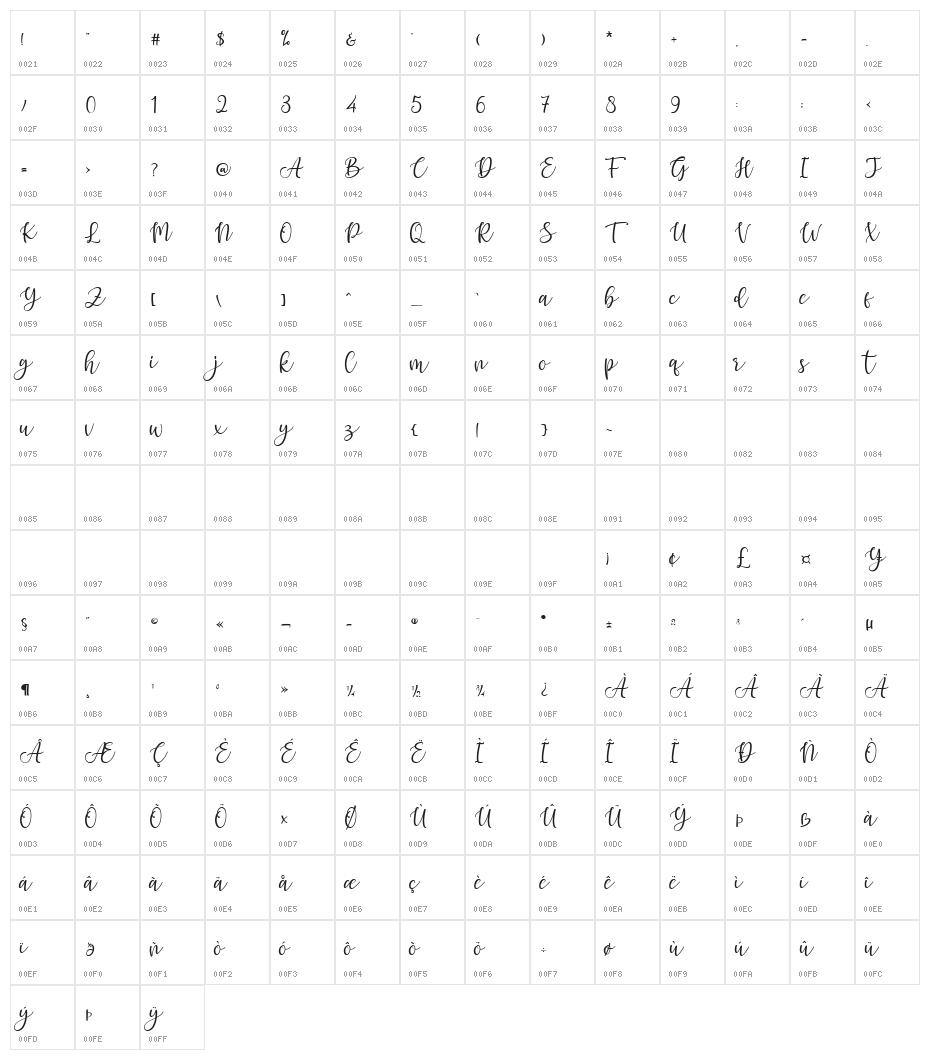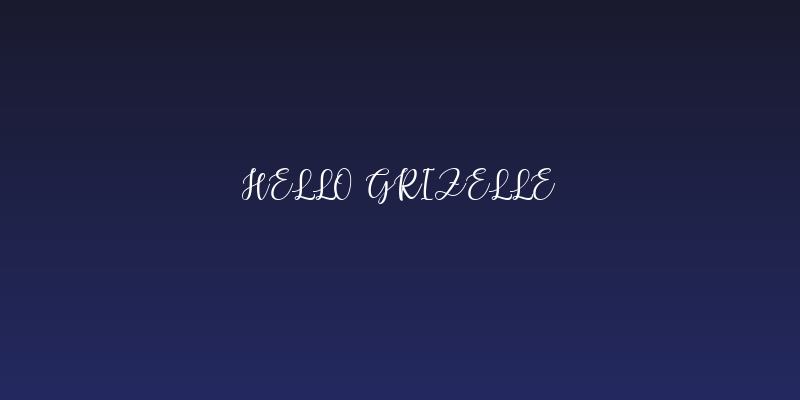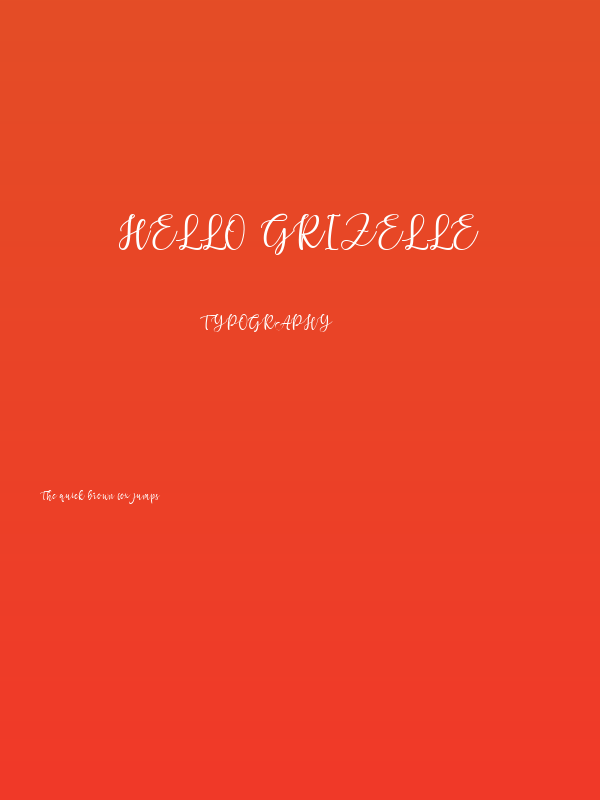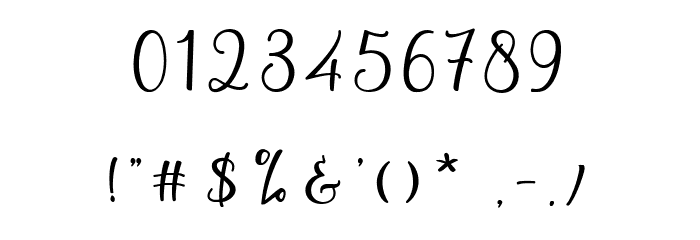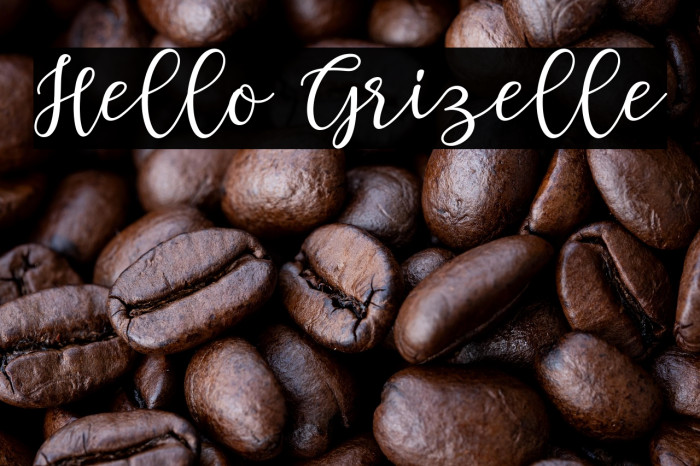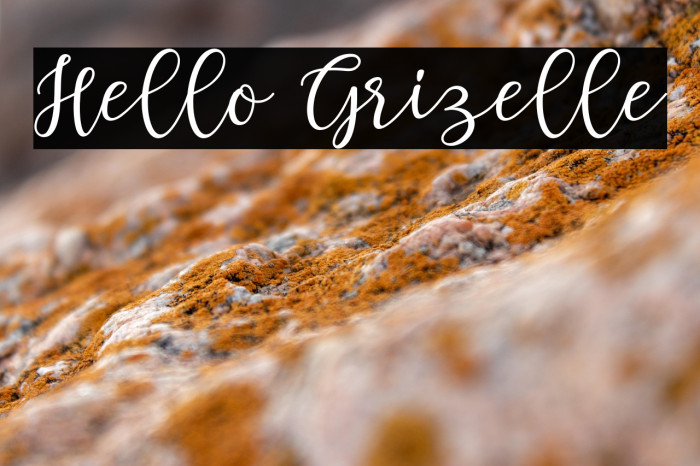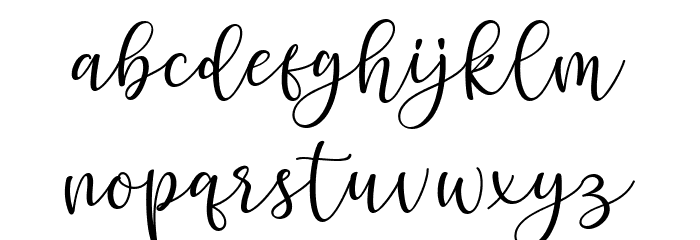
Hello Grizelle Font
Hello Grizelle Description
This elegant script font features a flowing, cursive style with smooth, connected strokes that mimic the fluidity of handwriting. The uppercase letters are ornate, with flourishes that add a touch of sophistication and grace. The lowercase letters maintain a consistent flow, creating a harmonious and visually pleasing appearance. The numerals are clear and distinct, complementing the overall style of the font. Special characters are thoughtfully designed to match the script's aesthetic, making it versatile for various applications. The font's delicate curves and loops give it a romantic and artistic feel, perfect for projects that require a personal or creative touch.